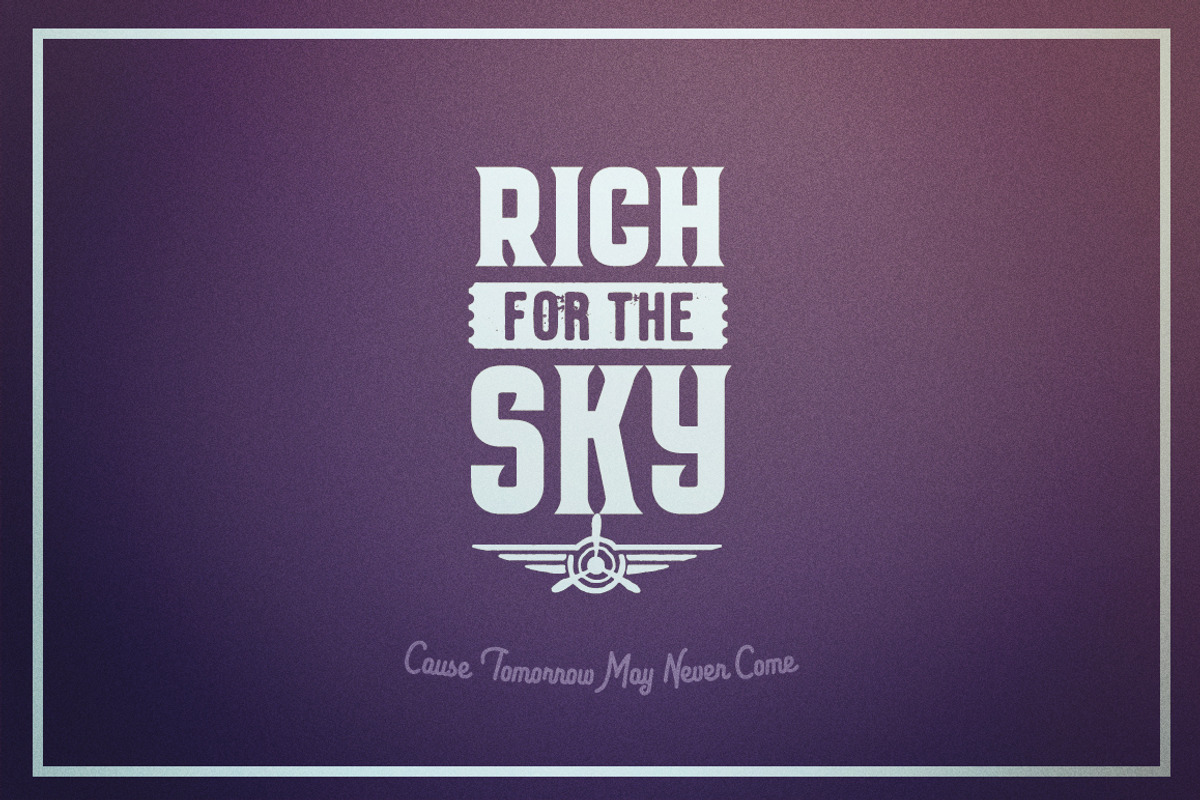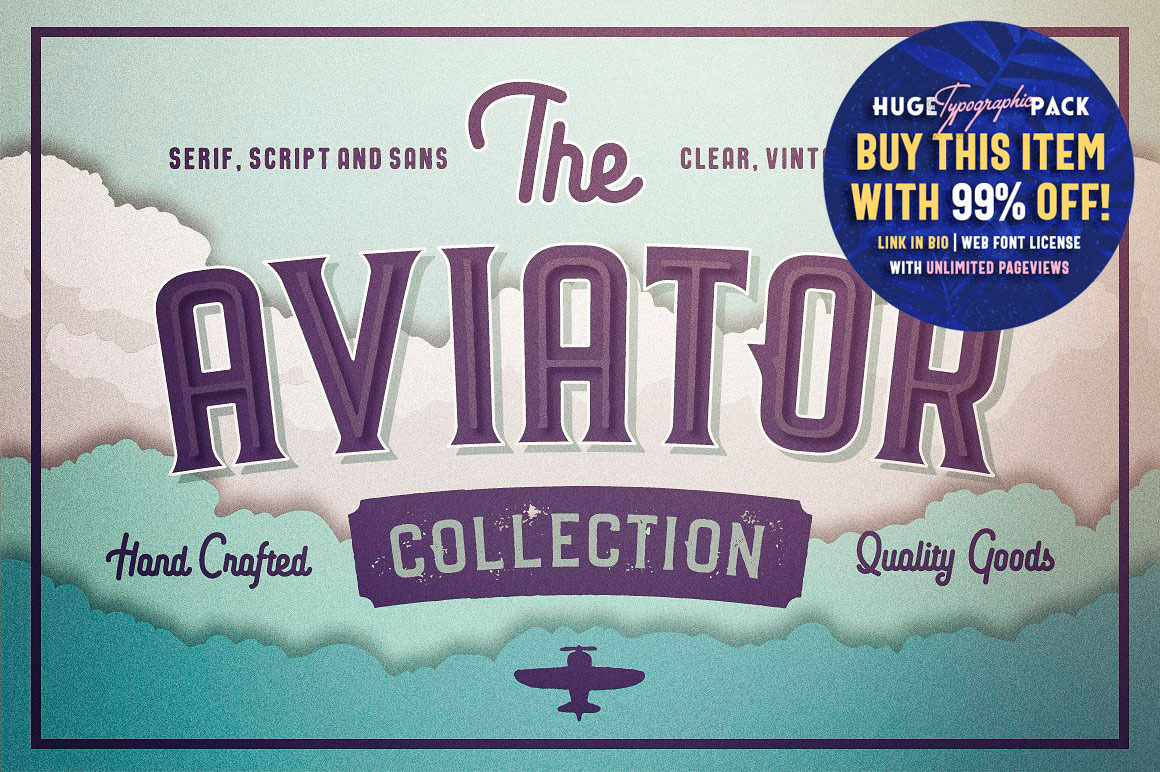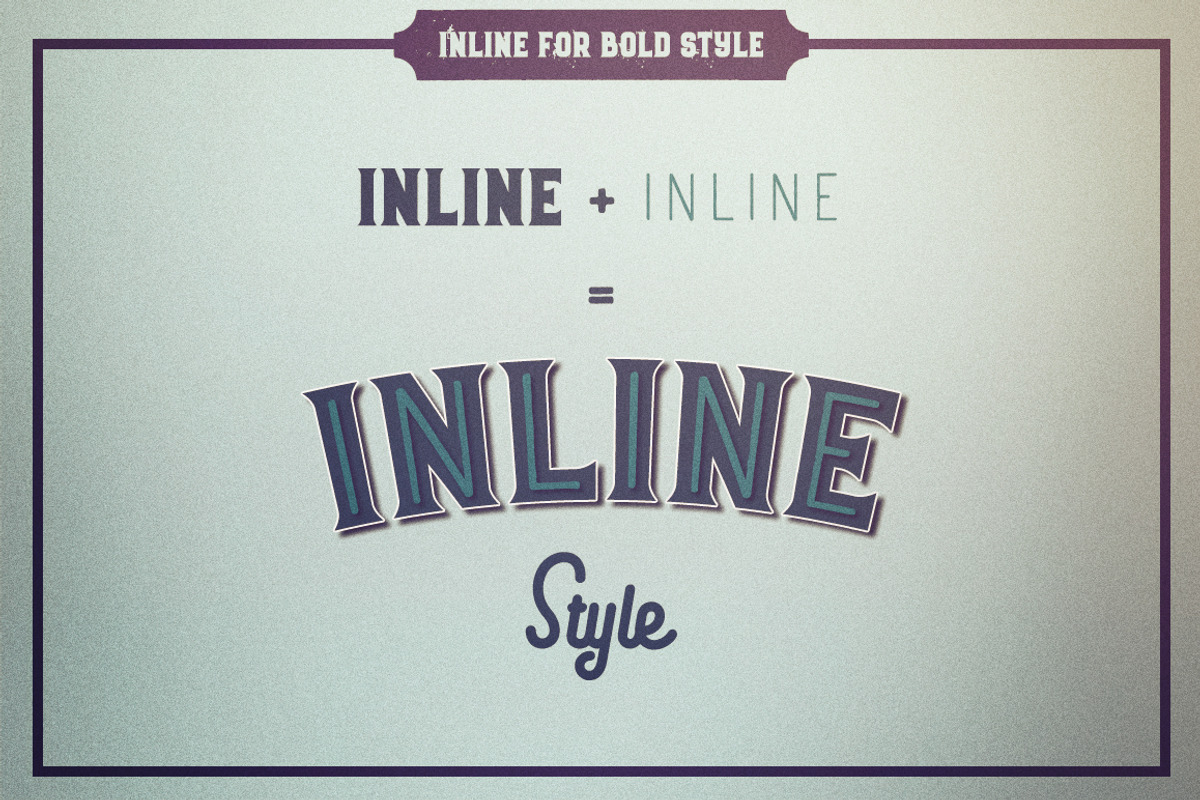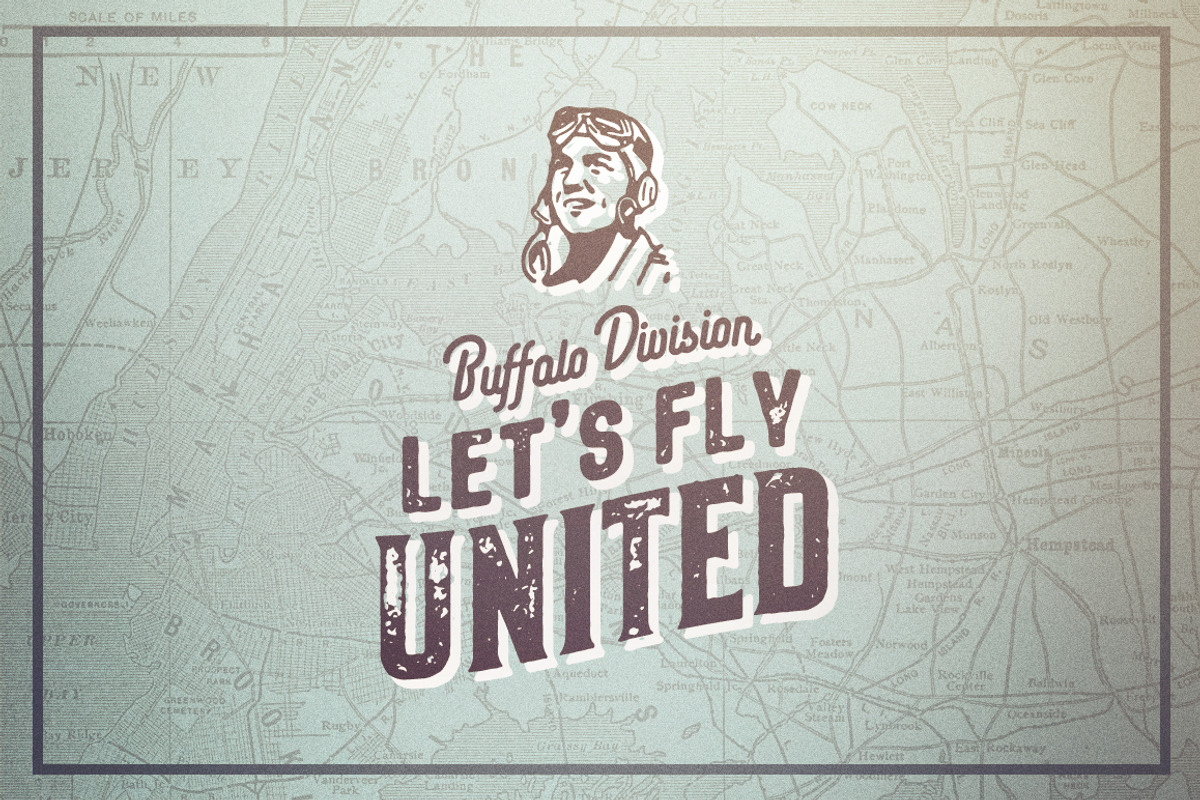
The Aviator Font Collection
The Aviator Font Collection is a type collaboration of four different vintage font for get a target - 100% awesome vintage style! Create your own vintage style - Elegant Clean or Distressed Letterpress. And it not the all - 52 vintage illustration for logo creation and awesome tool - Vintage Badge Creator! Just install all this font files and create your own stuff. These are perfect for Logos, Advertising, Apparel Design, Labels, Posters, Package design, Signage, Etc.
The three typefaces come in two style: Clean and Aged (Distressed Letterpress) and Script come in one style - Clean. All of Aviator Collection come with Western European characters.